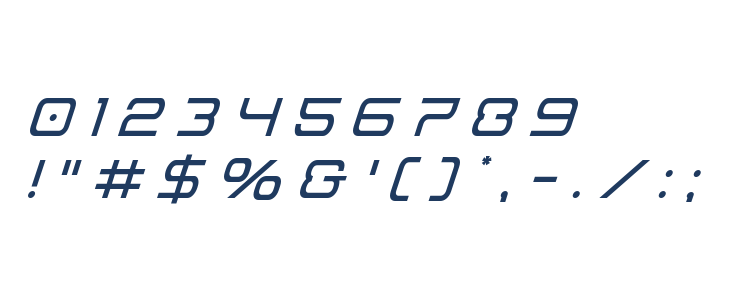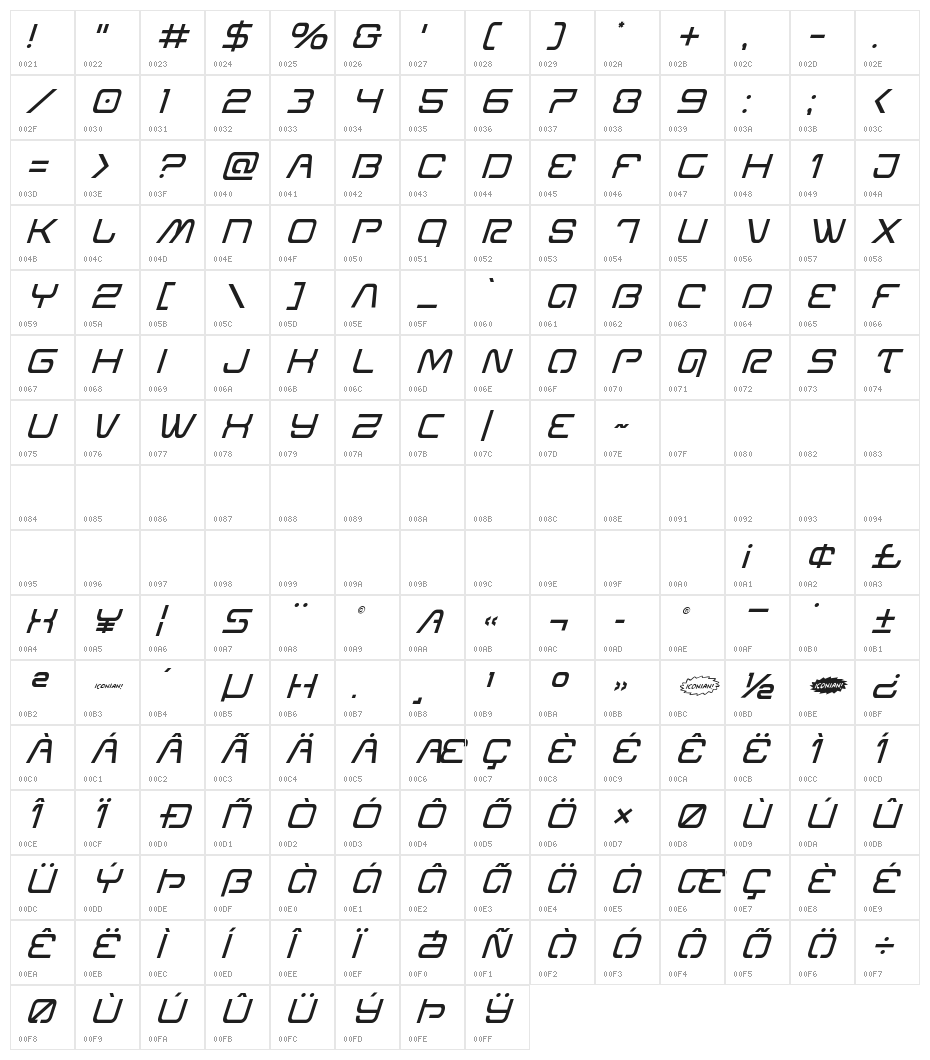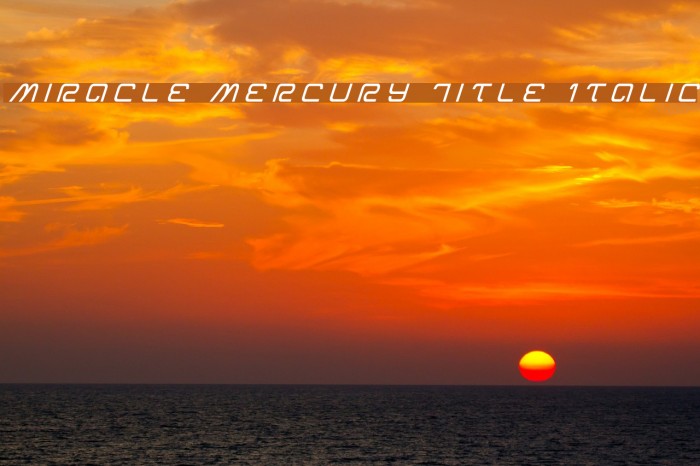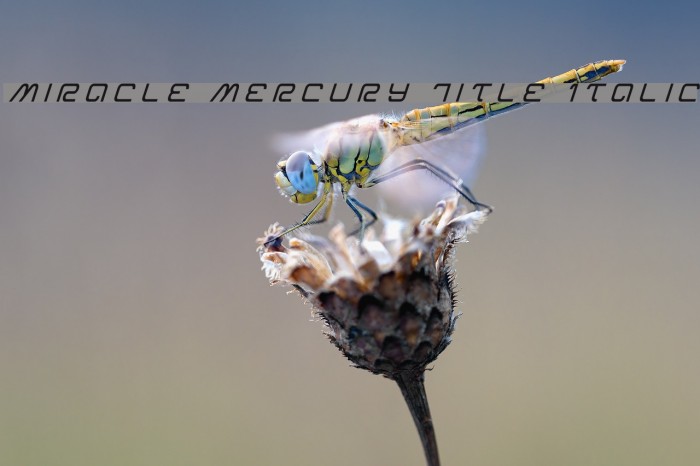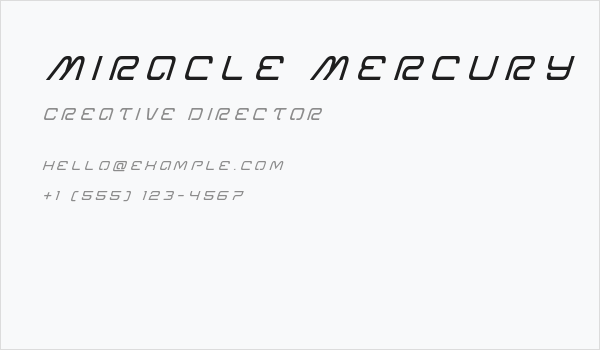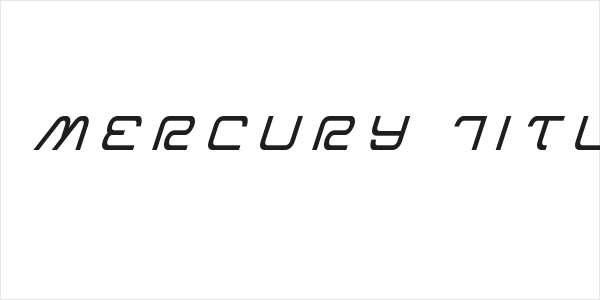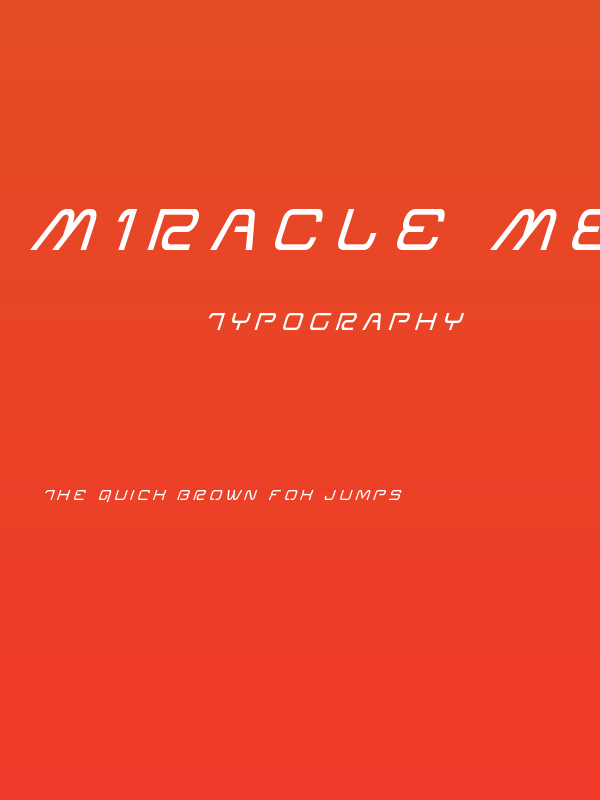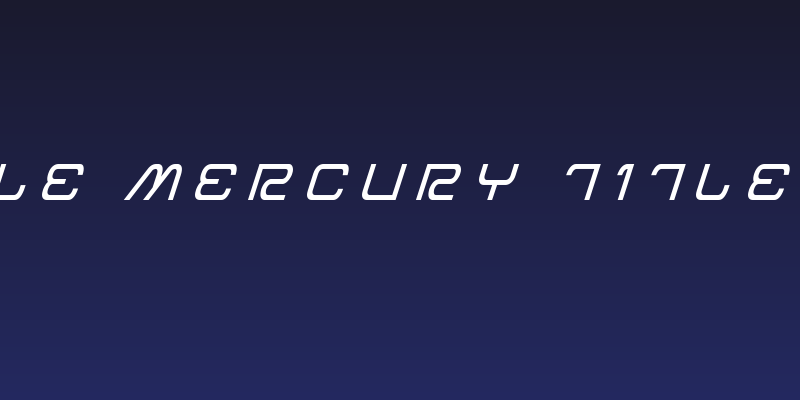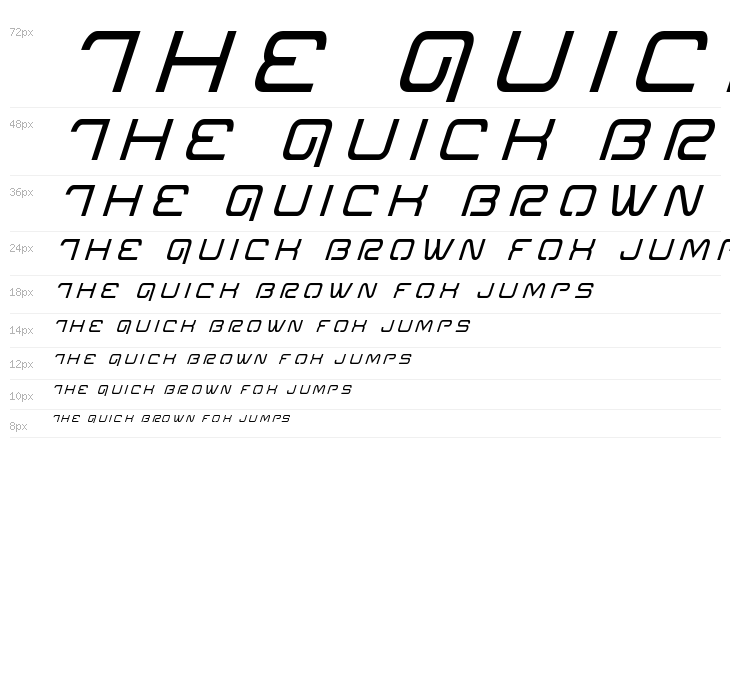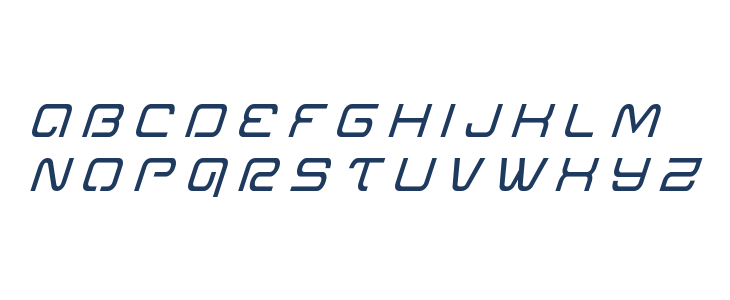
Miracle Mercury Title Italic Font
Miracle Mercury Title Italic Description
This font features a sleek, modern design with a slight italic slant, giving it a dynamic and forward-moving appearance. The characters are crafted with a geometric precision, showcasing clean lines and a uniform stroke width. The uppercase and lowercase letters maintain a consistent style, while the numerals and special characters complement the overall aesthetic. The font's futuristic vibe is enhanced by its minimalistic and streamlined form, making it suitable for contemporary design projects.
| Use Case | Headlines, Logos, Digital Interfaces |
| Proposed Projects | Ideal for technology branding, modern advertising, futuristic posters, and digital interfaces. |